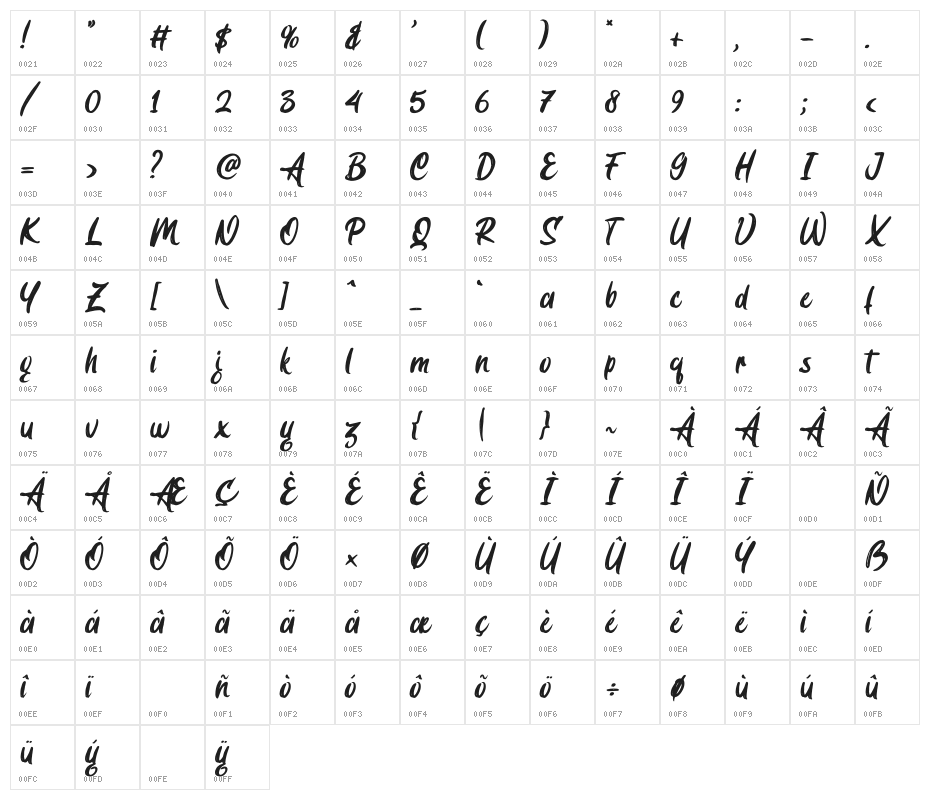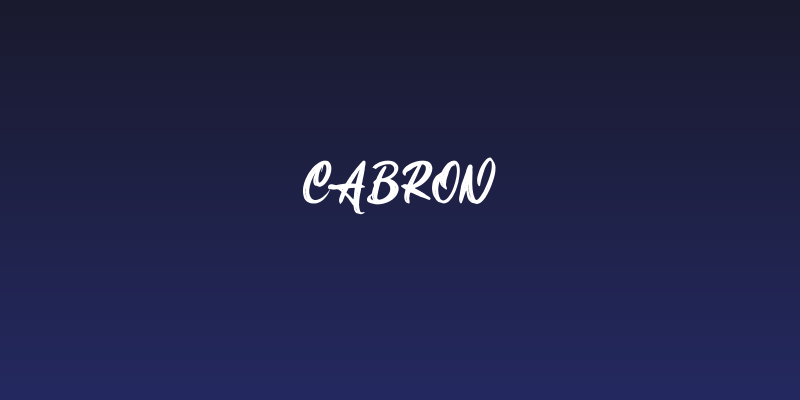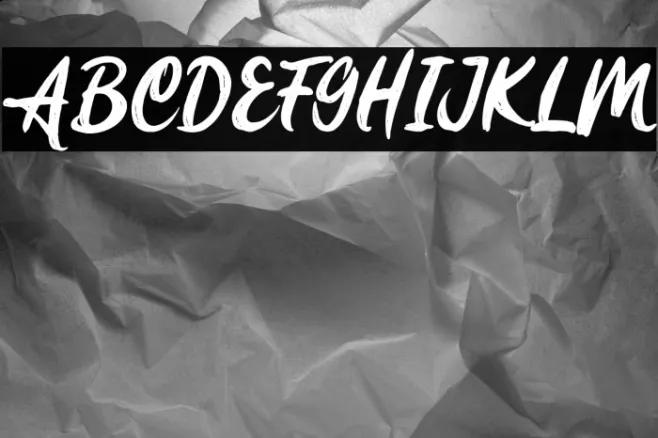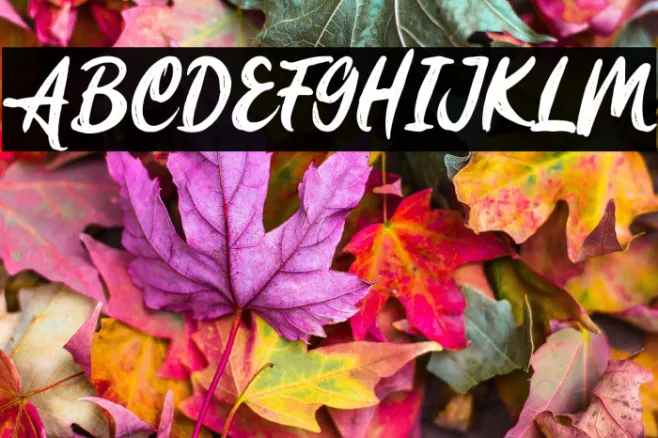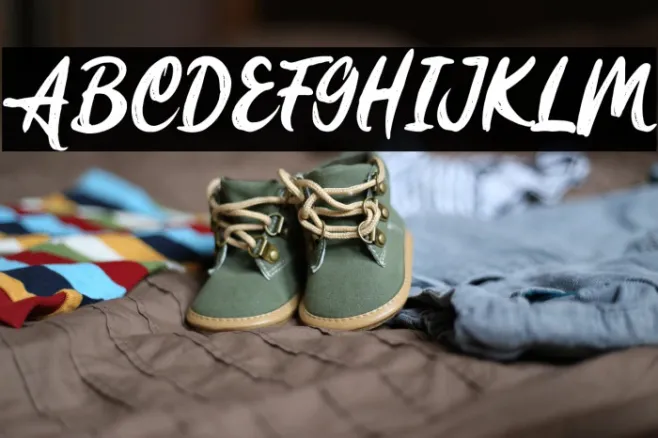
Cabron Font
Cabron Description
This font exudes a bold and energetic style, characterized by its thick, brush-like strokes that convey a sense of movement and dynamism. The letters are slightly slanted, adding to the impression of speed and fluidity. Each character is distinct, with a handcrafted appearance that suggests a personal touch. The uppercase letters are particularly striking, with their sweeping curves and strong presence, while the lowercase letters maintain a consistent flow. The numerals and special characters are equally expressive, fitting seamlessly into the overall aesthetic. This font is ideal for projects that require a touch of creativity and boldness.
| Proposed Projects | Ideal for branding, posters, and creative design projects that require a bold, artistic touch. |